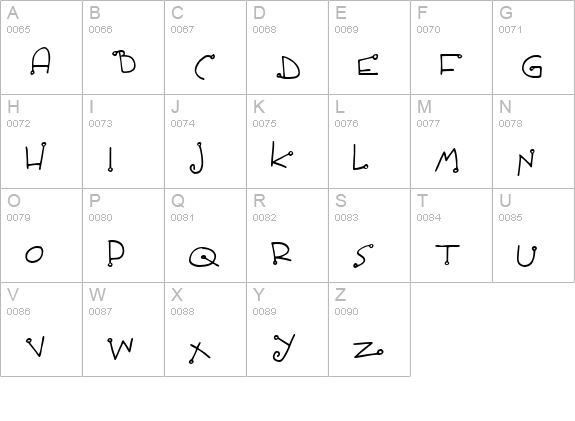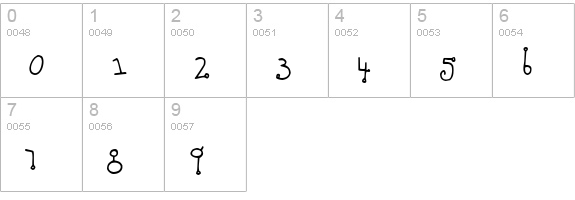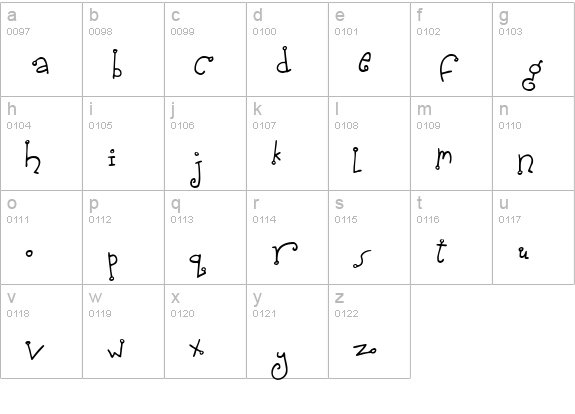
Spidershank Font Details
Introducing Spidershank, a captivating font that will weave its way into your designs and leave a lasting impression. With its intricate web-like strokes and edgy, yet elegant appeal, Spidershank is the perfect choice for projects that require a touch of mystery and intrigue. This unique font captures the essence of its namesake, combining the grace of a spider's silk with the sharpness of a shank. Its carefully crafted letterforms create a sense of movement and depth, drawing the reader in and captivating their attention. But what sets Spidershank apart is not just its striking aesthetics, but also the fact that it is freely available to download at FontsMarket.com. Yes, you read that right! Spidershank can be yours at no cost, allowing you to bring a touch of sophistication and allure to your designs without breaking the bank. Whether you're working on a logo, a poster, or a website, Spidershank will add a touch of distinction and originality to your project. Its versatility makes it suitable for a wide range of design styles, from modern and minimalist to bold and expressive. So why wait? Unleash your creativity and let Spidershank spin its web of enchantment in your designs. Download this captivating font now, completely free at FontsMarket.com, and watch as your projects come to life with style and sophistication.